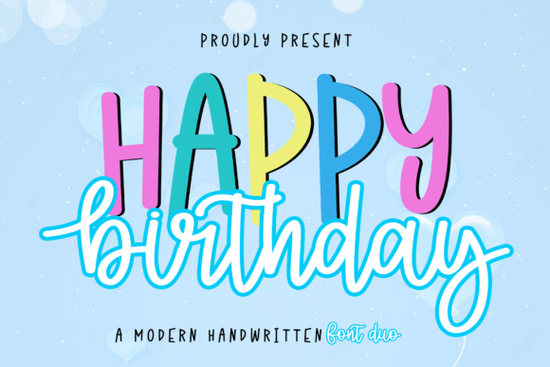
What Makes a Handwritten Font Duo Perfect for Party Projects?
A font duo isn’t just two fonts tossed into a folder. The Happy Birthday Duo deliberately combines a tall, solid sans-serif with a smooth, interconnected script. The sans-serif letters are bold and outlined, almost like sturdy cut-out letters you would see on a birthday banner. The script flows with curved entry and exit strokes, adding a sense of movement and warmth. Because the two styles share a similar x-height and springy rhythm, you can layer them without awkward gaps or scaling headaches. That marriage of structure and motion makes every headline, card, or sticker feel polished and celebratory right away.
How Can I Use the Happy Birthday Duo Font in My Designs?
This duo thrives on party-themed projects. Think birthday invitations, children’s party announcements, event flyers, gift tags, and digital stickers. Small businesses might use it for greeting cards, social media posts, or even printable wall art. Print-on-demand sellers can drop the bold outlined letters onto a mug or a t‑shirt and let the script add a handwritten “Happy Birthday” that looks custom‑made. Because the font is PUA encoded, all those extra swashes and ligatures are accessible in standard design software, so even a beginner can pull alternate letters without digging through a separate character map.
How Do I Layer the Two Styles for Custom Typography?
Layering sounds tricky, but it’s straightforward with this duo. Start with the chunky sans-serif and type your message. Duplicate the text layer, switch the copy to the script font, and choose a vibrant color that contrasts with the outline underneath. Often a slight offset or a tiny shadow helps the script pop. Thanks to the connected letters and built‑in ligatures, the script layer stays readable even over busy backgrounds. You can also print the bold layer in a soft pastel and overlay the script in a bright neon for a trendy, eye‑catching title. No clipping masks or complicated effects are needed the fonts were built for this exact task.
What Other Script Fonts Pair Well with This Handwritten Style?
If you love the bounce of the Happy Birthday script but need a more romantic or delicate look for a wedding card, the elegant flourishes of I Love You font offer a completely different mood while still feeling personal. For a laid‑back weekend vibe, the casual rhythm of Saturday font shares a similarly upbeat, handwritten energy that works well alongside a clean sans-serif. When you need a thinner, ultra‑refined script that won’t compete with the bold display, Kimily font gives you a delicate cursive with flowing connectors. The cheeky, dancing baseline in Dancing font mimics a similar playful motion you’ll find in the duo’s script layer, while the sweet, rounded cursive of Honey font would make a lovely companion on invitations or thank‑you notes. All of these can be mixed and matched depending on the tone of your project, but none are part of the duo you’ll need to grab them separately if you want to experiment.
How Can I Use This Duo for Print-on-Demand and Small Business Projects?
The outlined sans-serif has a chunky, legible shape that prints cleanly on fabric, ceramic, and paper. Because the outline style has a built‑in hollow look, it saves ink and feels lighter than a solid filled font, while still being bold. The script layer adds that handwritten, personalised charm that customers love on birthday mugs, tote bags, or framed signs. If you create digital templates, the duo helps buyers quickly customise their own party invitations and feel like they have a designer touch. Just be sure to check the font’s commercial license for POD use; most standard Creative Fabrica licenses cover print-on-demand, but it’s wise to confirm before listing items.